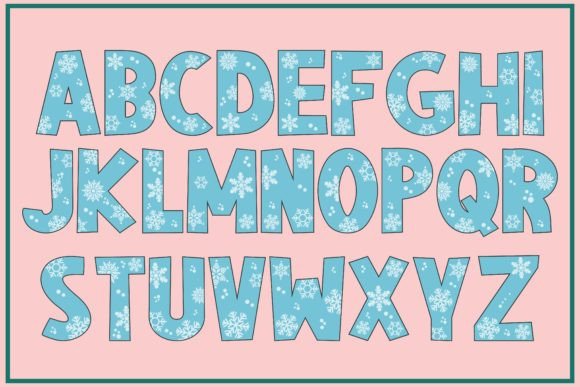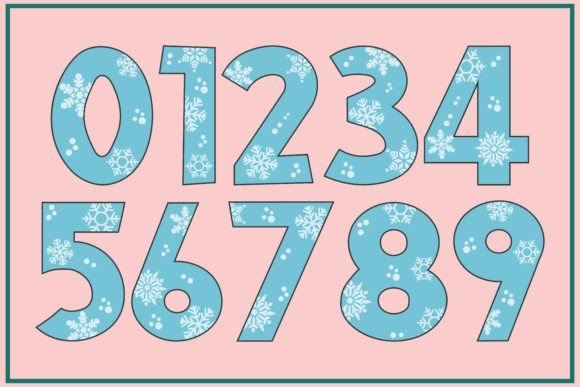
Snowflake Font
About Snowflake Font
Introducing Snowflake, the perfect color font to add a touch of winter magic to your designs! With its intricate snowflake decorations on each character, Snowflake is a cool and unique choice for any project, especially those related to the Christmas holiday.
The snowflake-themed characters in this font capture the beauty and elegance of winter. Whether you’re designing Christmas cards, winter-themed invitations, holiday banners, or any other creative project, Snowflake will instantly bring a frosty and festive atmosphere.
The versatility of Snowflake allows it to be used in various design ideas beyond Christmas. Its delicate snowflake details make it suitable for winter-themed events, seasonal promotions, winter sports graphics, and more. You can let your imagination run wild and explore the endless possibilities this font offers.
Snowflake is sure to captivate viewers with its intricate details and bring a touch of enchantment to your projects. Whether you’re creating digital designs or printed materials, this color font will add an extra layer of visual interest and make your creations stand out.
So, embrace the cool and unique style of Snowflake and let it transform your designs into winter wonderlands. Whether it’s for Christmas, winter-themed events, or any creative project that needs a touch of frosty charm, Snowflake will be the perfect companion to make your designs sparkle like snowflakes in the winter sky.